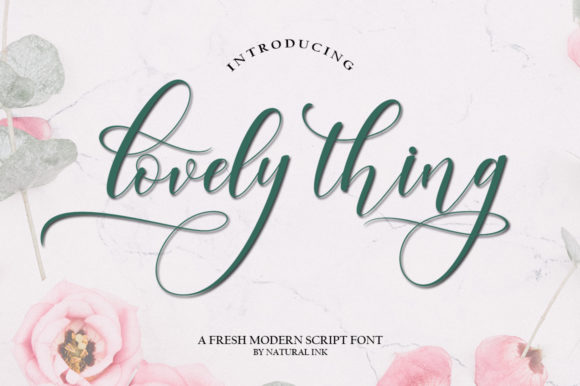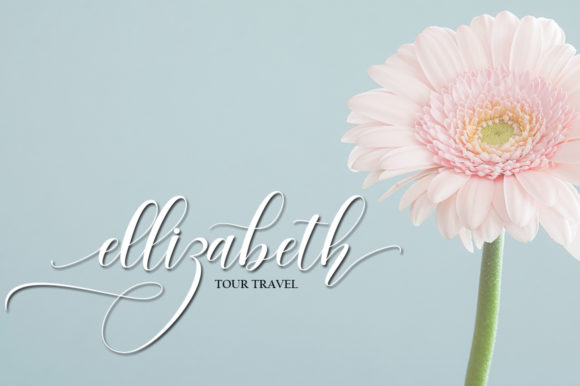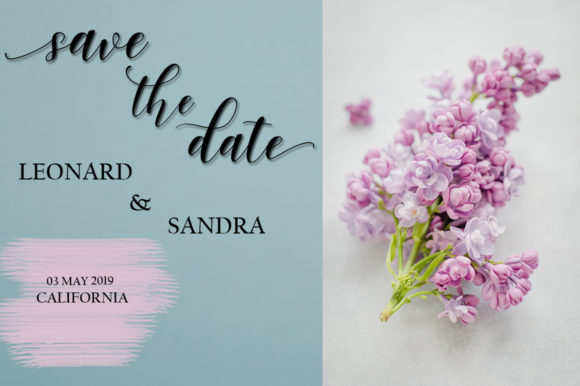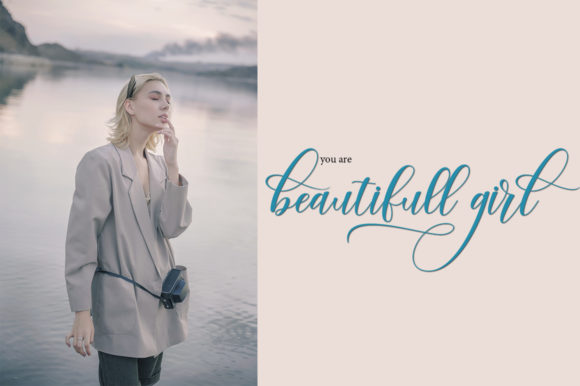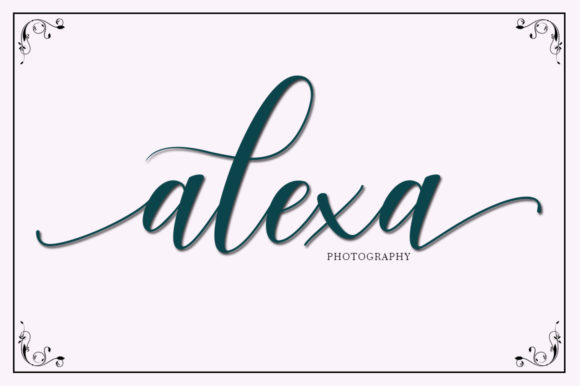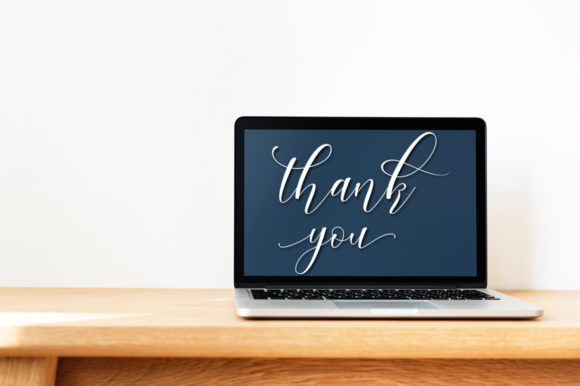
Lovely Thing Font
About Lovely Thing Font
The Lovely Thing is a modern calligraphy script. It includes elegant swashes which gives it a luxurious look,
It’s perfect for logos, product packaging, wedding invitations, branding, headlines, signage, labels, signature, book covers, posters, quotes and more.